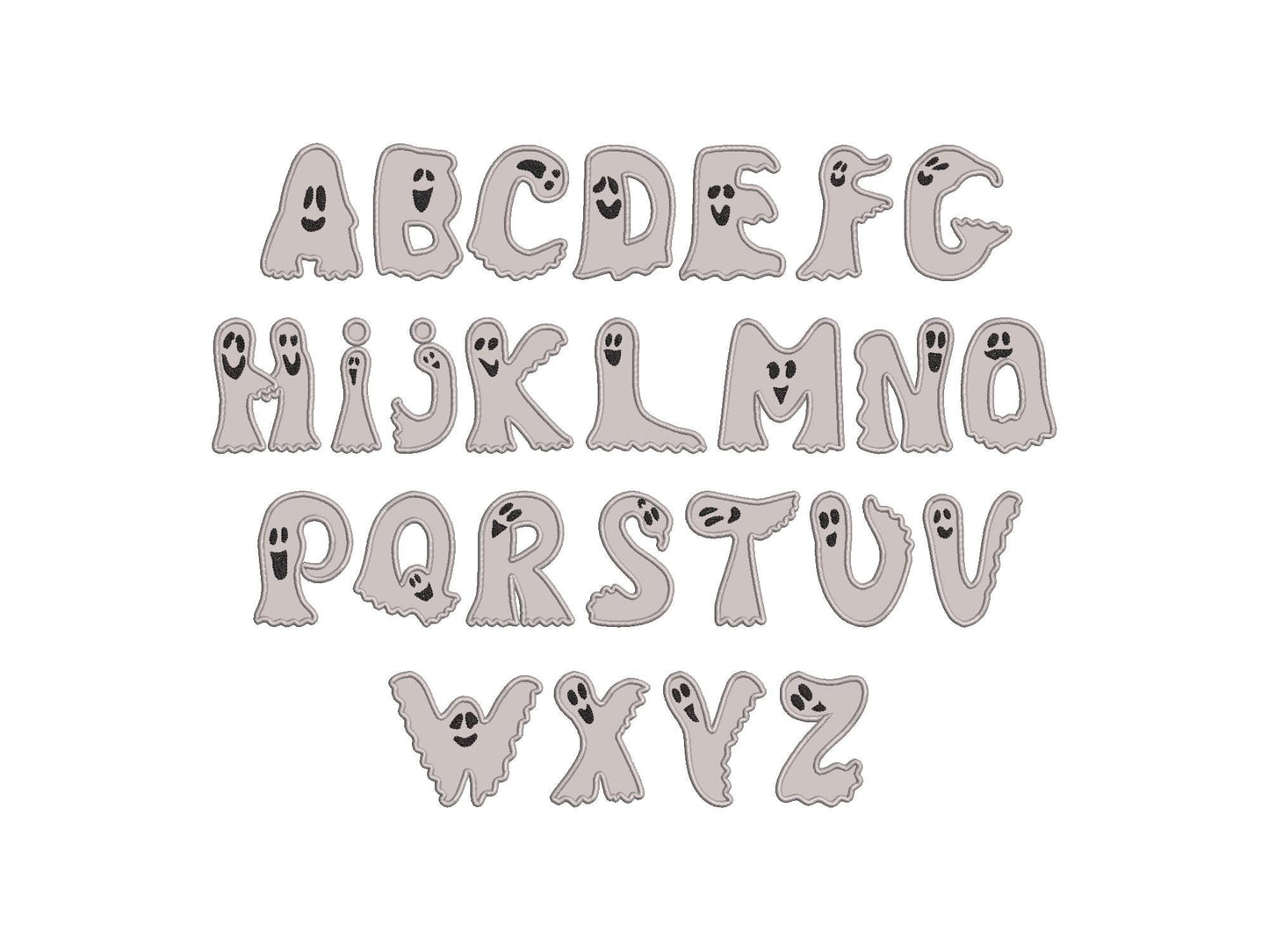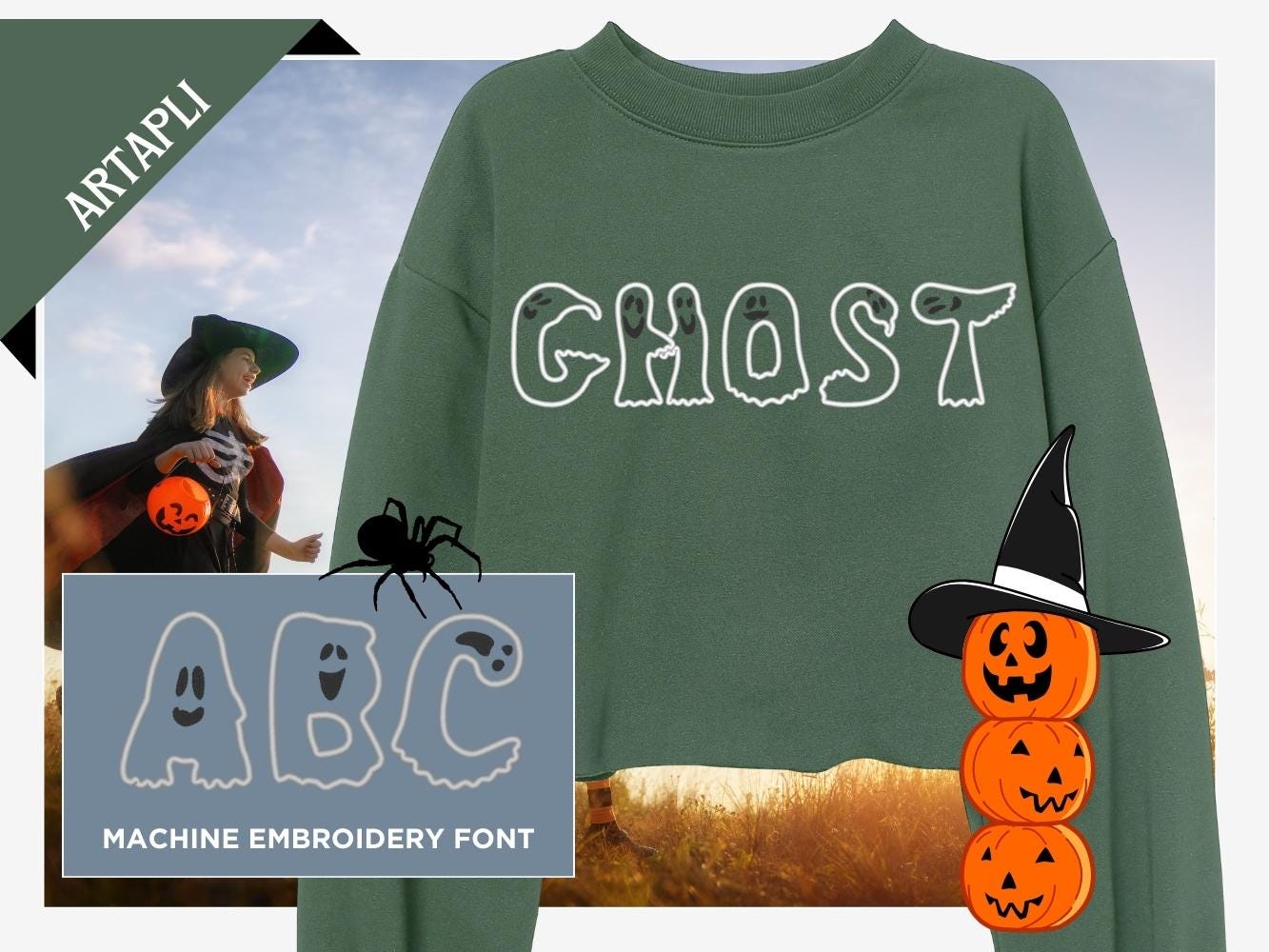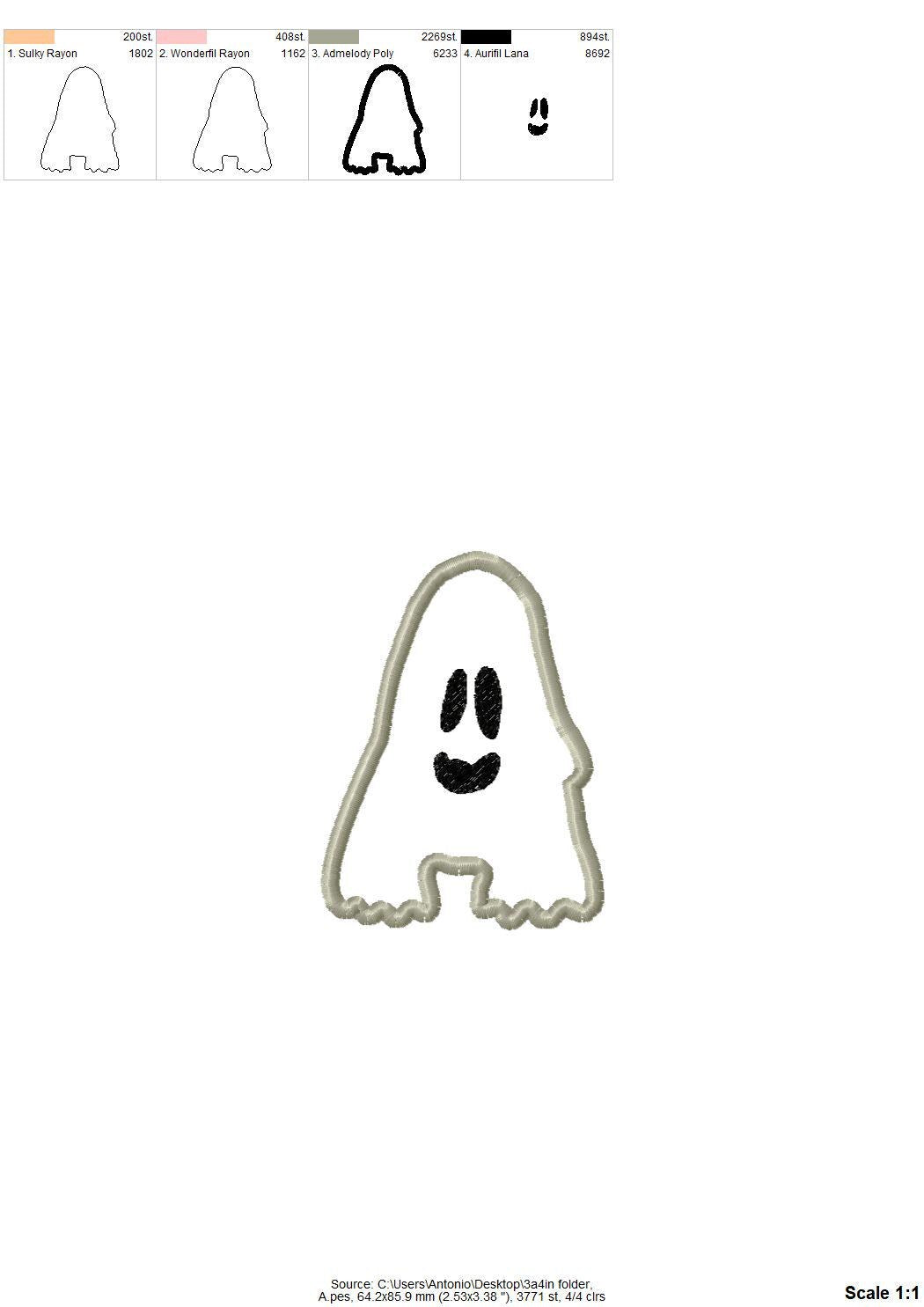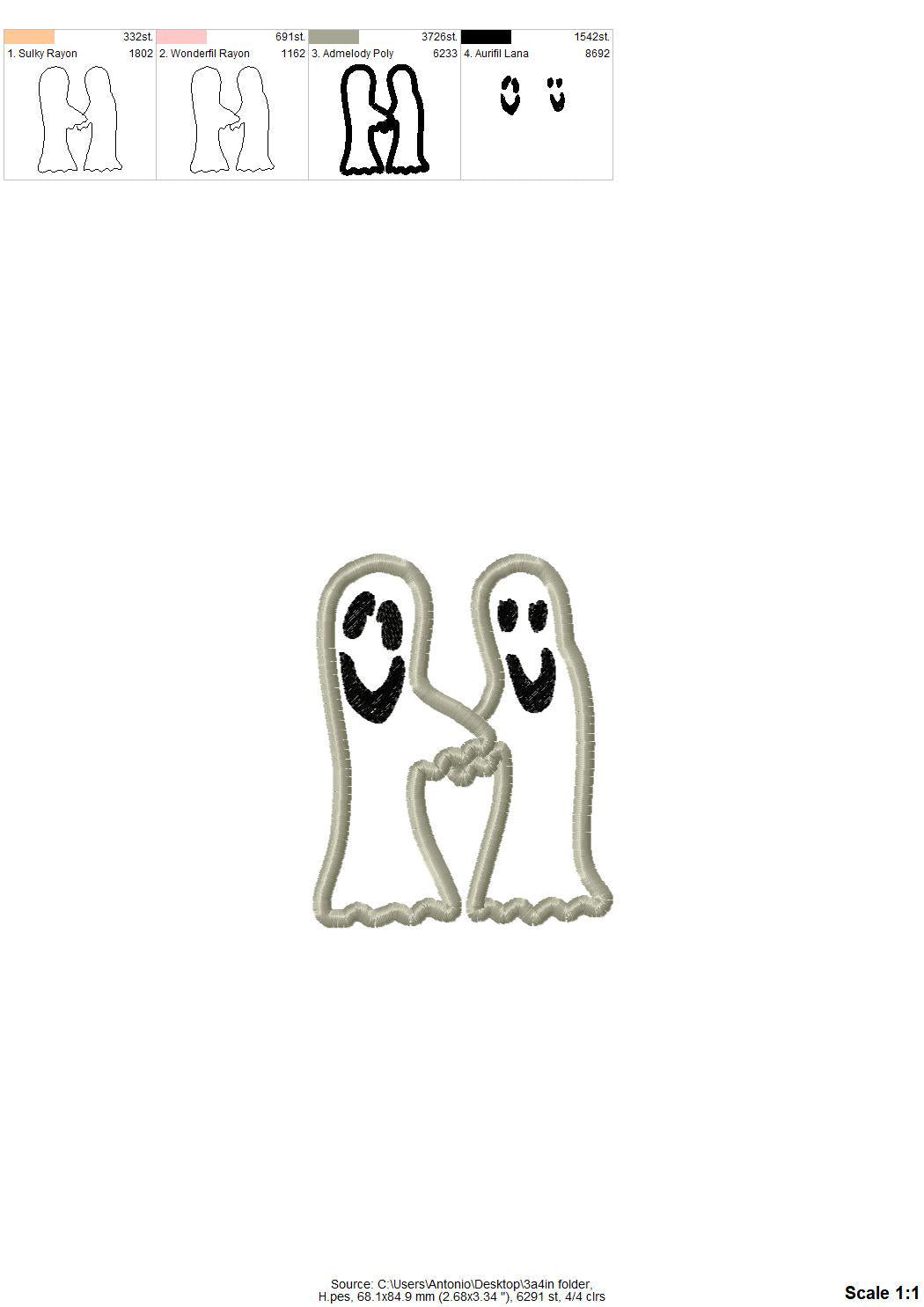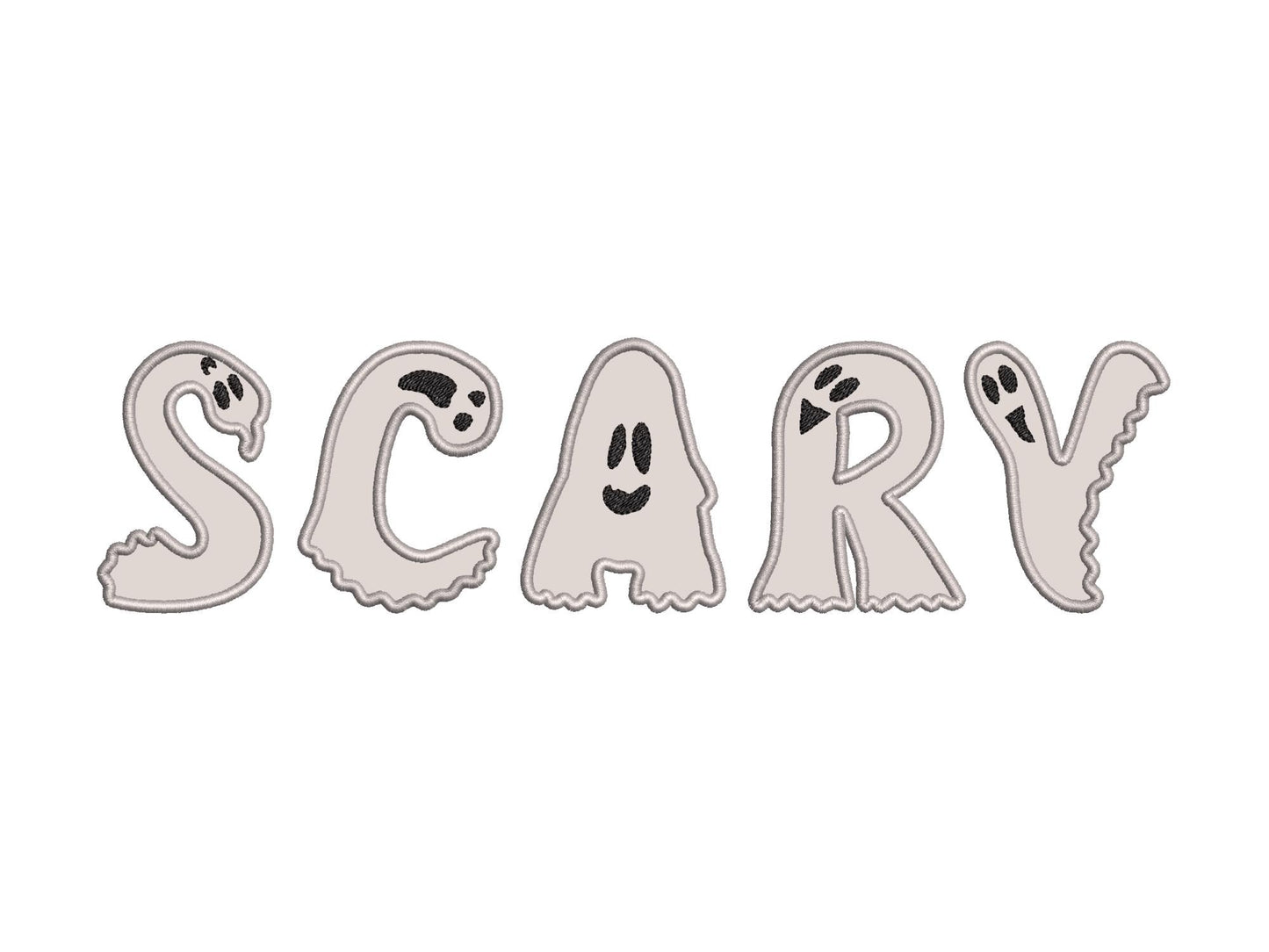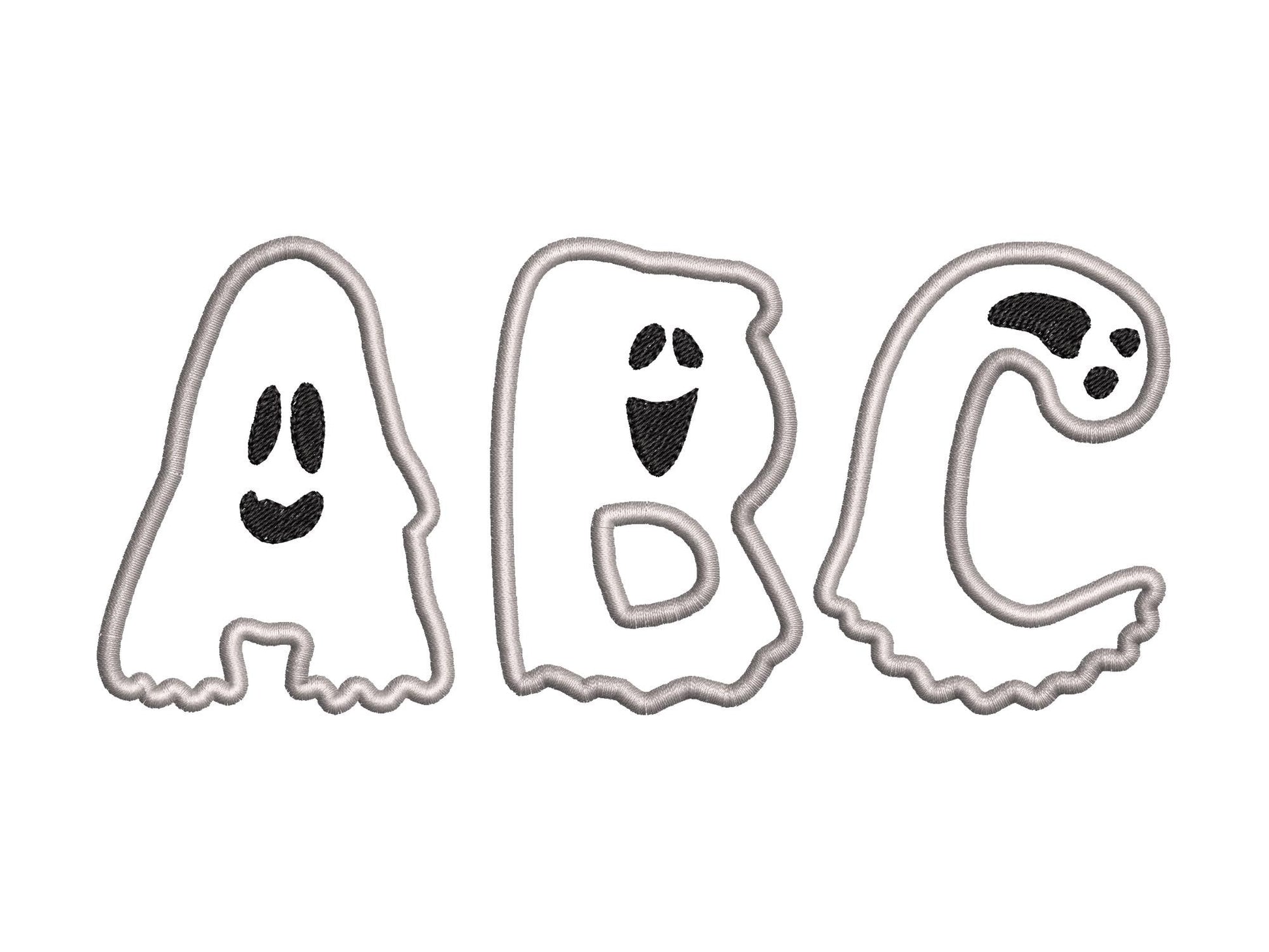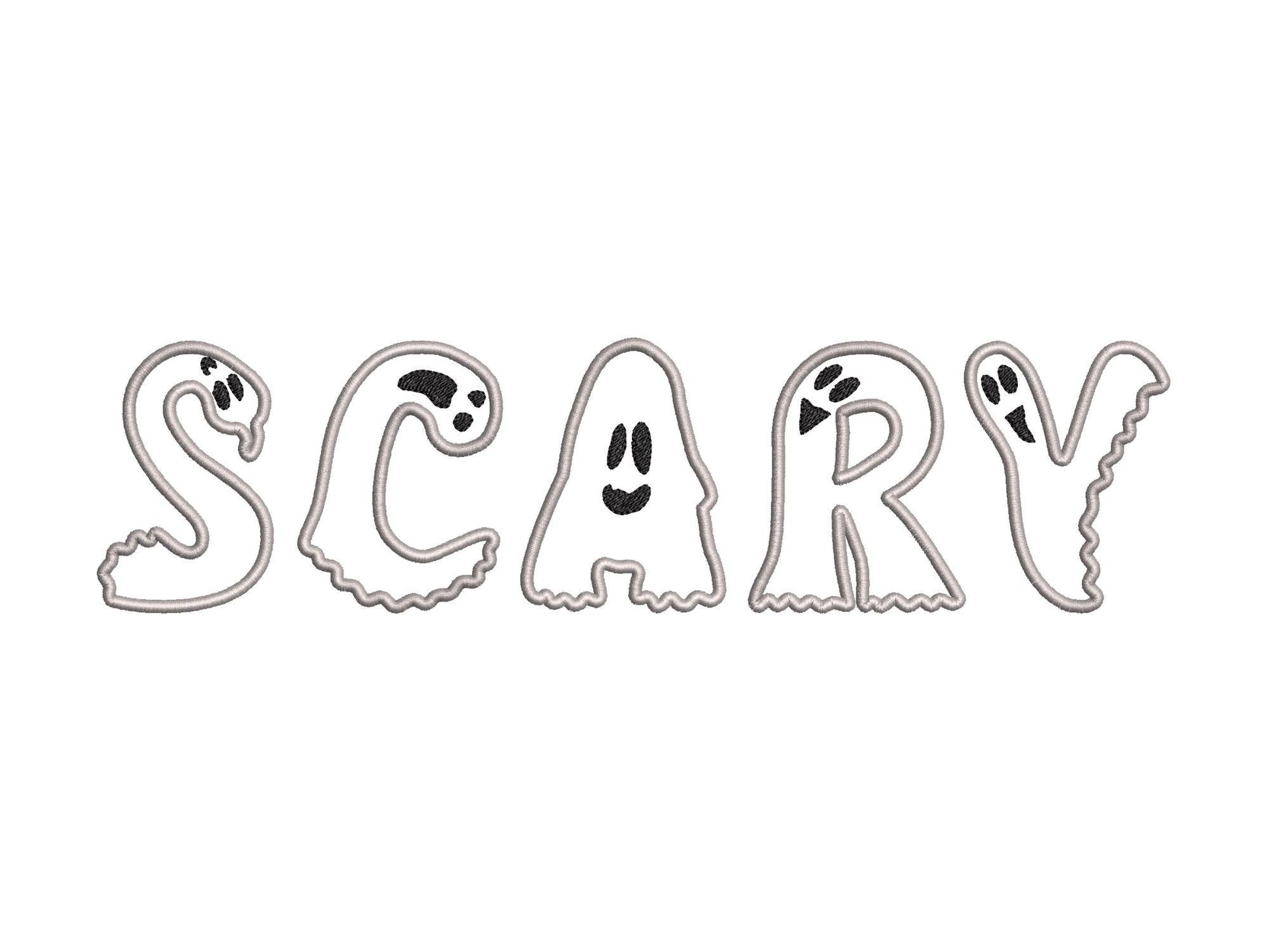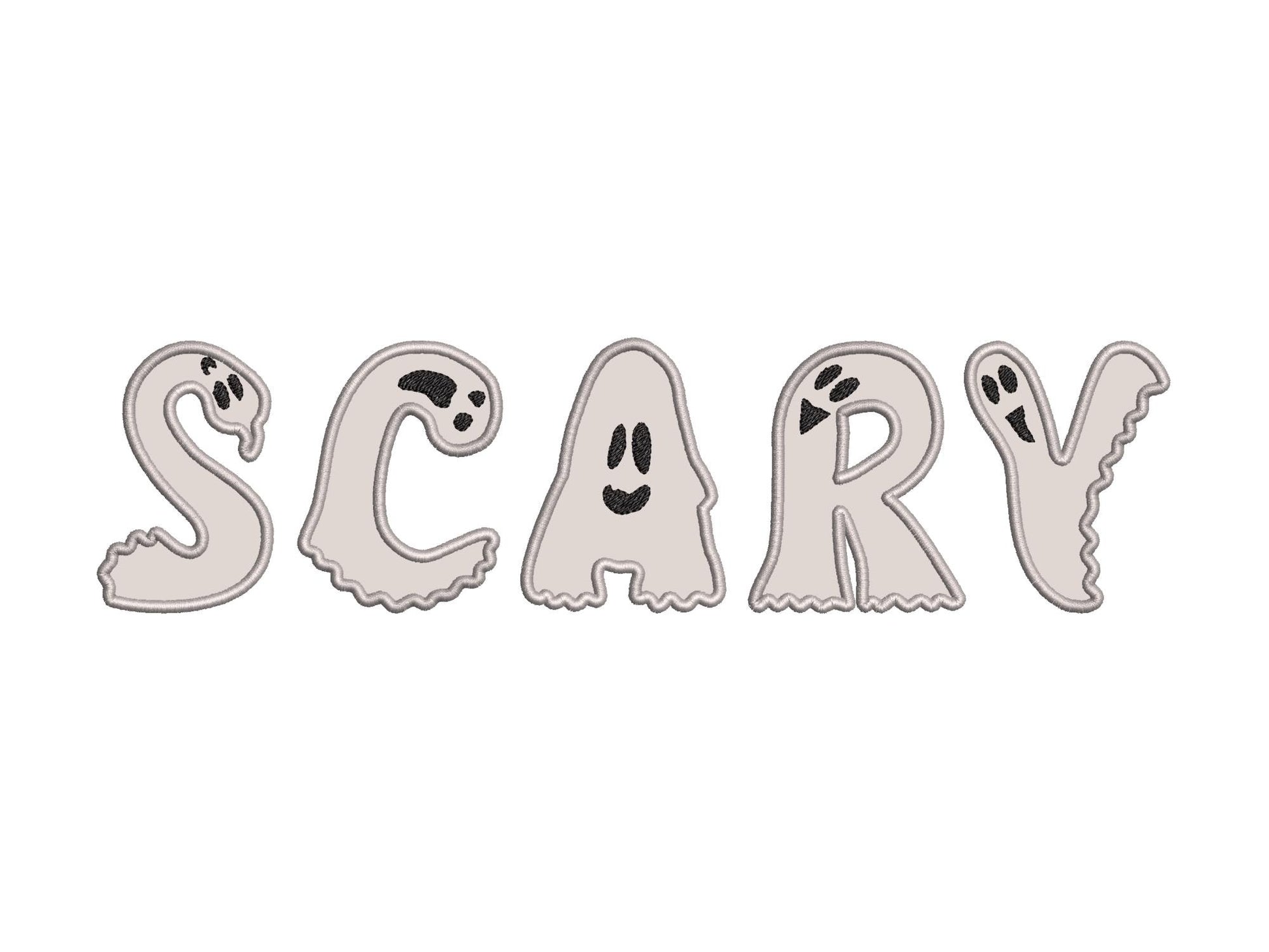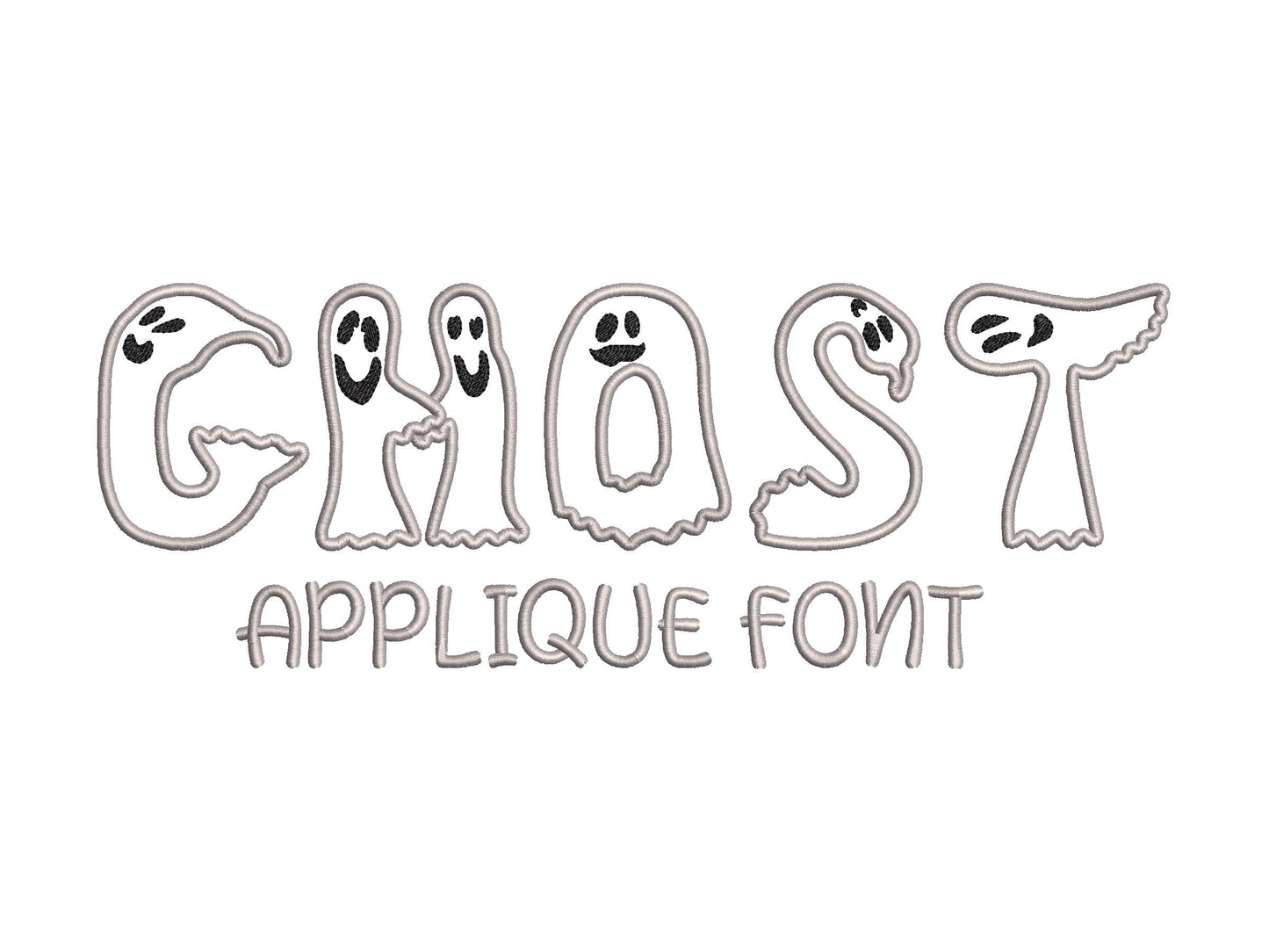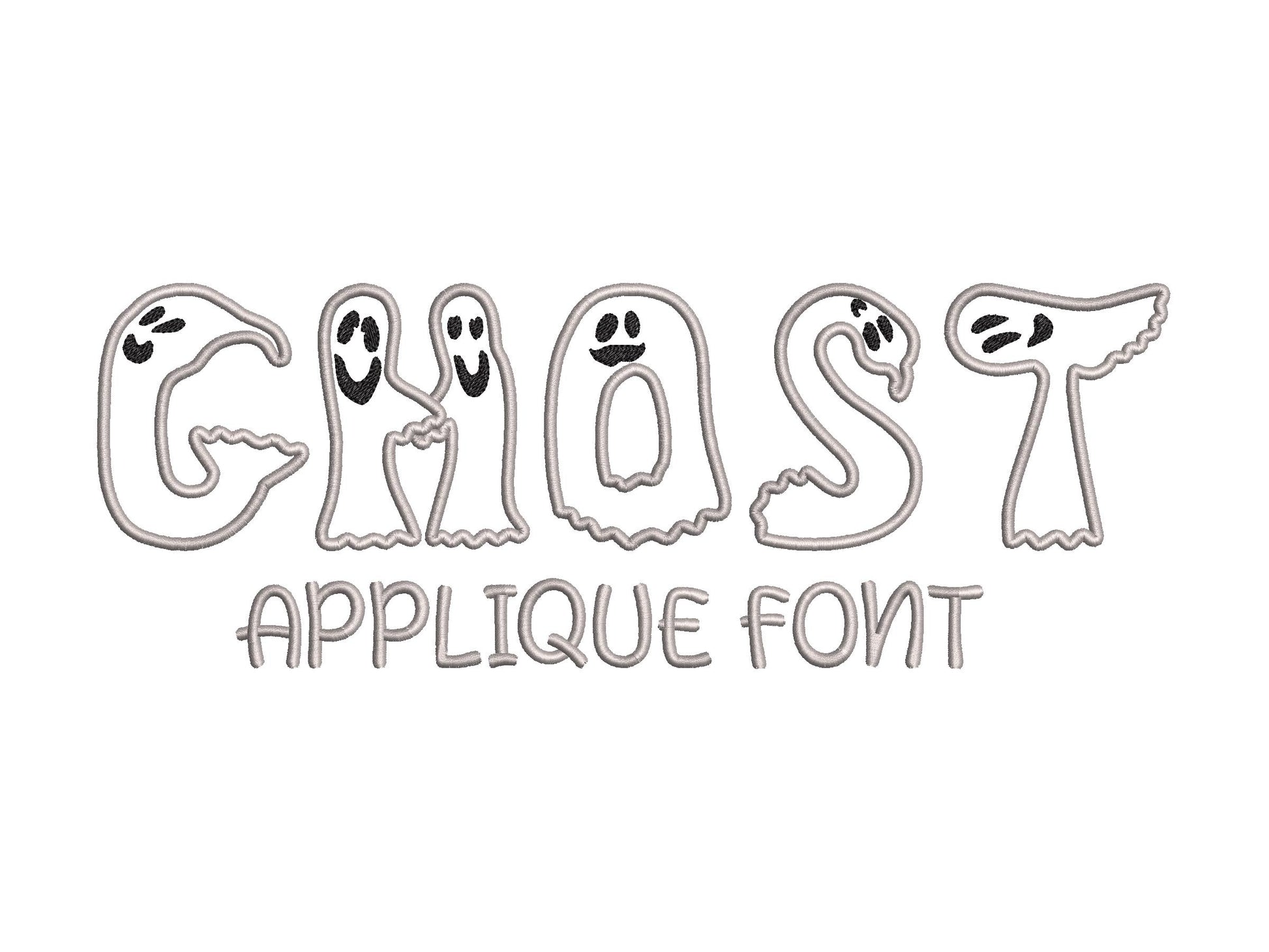
Halloween Ghost Font Applique
Uppercase letters A to Z in five sizes: 3, 3.4, 4, 4.9 and 5.9 inches, each letter shaped with a playful ghost look.
- Ghost applique font
- Uppercase letters A-Z
- 5 sizes, 3 to 5.9 in